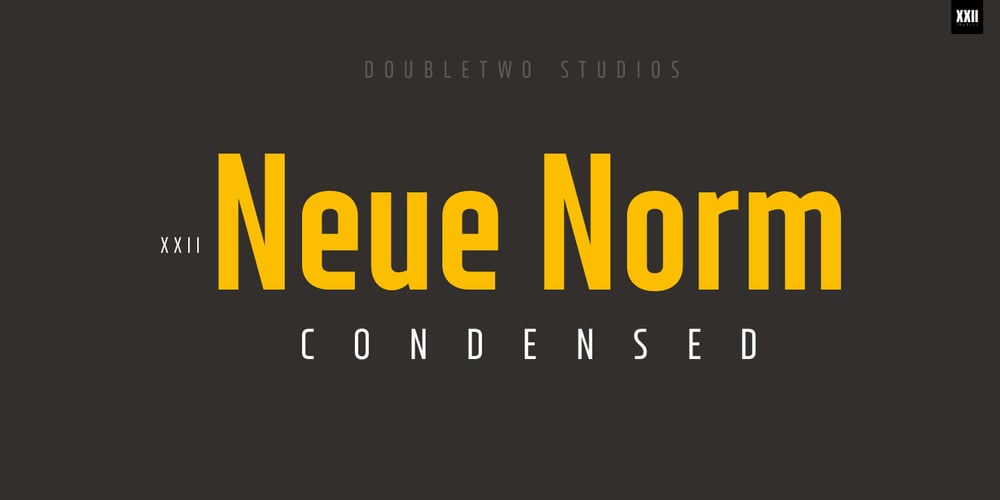
XXII Neue Norm
XXII Neue Norm font
XXII Neue Norm Font Family was designed by Lecter Johnson and published by Doubletwo Studios. XXII Neue Norm contains 36 styles and family package options. If you liked the power and straightness of a DIN Condensed, but wanted it a bit more technical and modern, you may love this little family. XXII Neue Norm is a constructed, low contrast, sans serif typface of nine weights and its fitting italics. There is also a Rounded version of XXII Neue Norm.